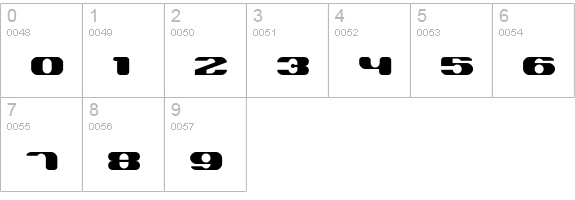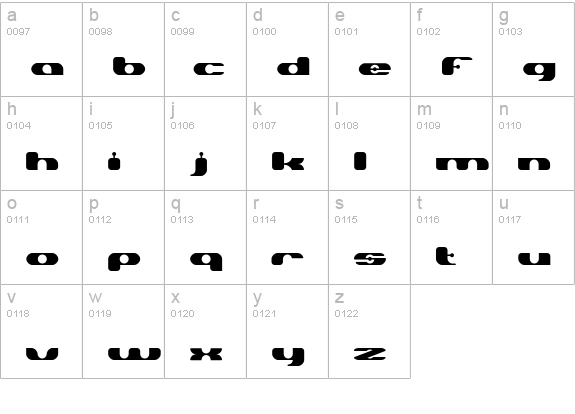
Terminal-Regular is the standard, neutral variant in the Terminal typeface family \xE2\x80\x94 well suited to general body text, paragraphs, and standard typographic work.
The Terminal-Regular font is a sleek and modern typeface that is perfect for creating a professional and clean look. With its sharp angles and clean lines, this font is designed to make a bold statement while still maintaining a sense of simplicity. It is a versatile font that can be used for a variety of projects, including websites, logos, and print materials. What sets Terminal-Regular apart is that it is freely available to download at FontsMarket.com. This means that you can easily access this font without any cost or restrictions. Whether you are a graphic designer looking to add a modern touch to your designs or a business owner in need of a stylish font for your brand, Terminal-Regular is the perfect choice. By downloading Terminal-Regular from FontsMarket.com, you are not only getting a high-quality and visually appealing font, but you are also saving money. Fonts can be quite expensive, but with Terminal-Regular, you can enjoy the benefits of a top-notch font without having to spend a dime. In addition to being free, Terminal-Regular is also easy to install and use. It is compatible with various design software and can be seamlessly integrated into your creative projects. With its extensive character set and well-designed glyphs, you can give your designs a professional and polished look with ease. Don't miss out on the opportunity to enhance your designs with the sleek and modern Terminal-Regular font. Visit FontsMarket.com today to download this font for free and elevate your creative projects to new heights.